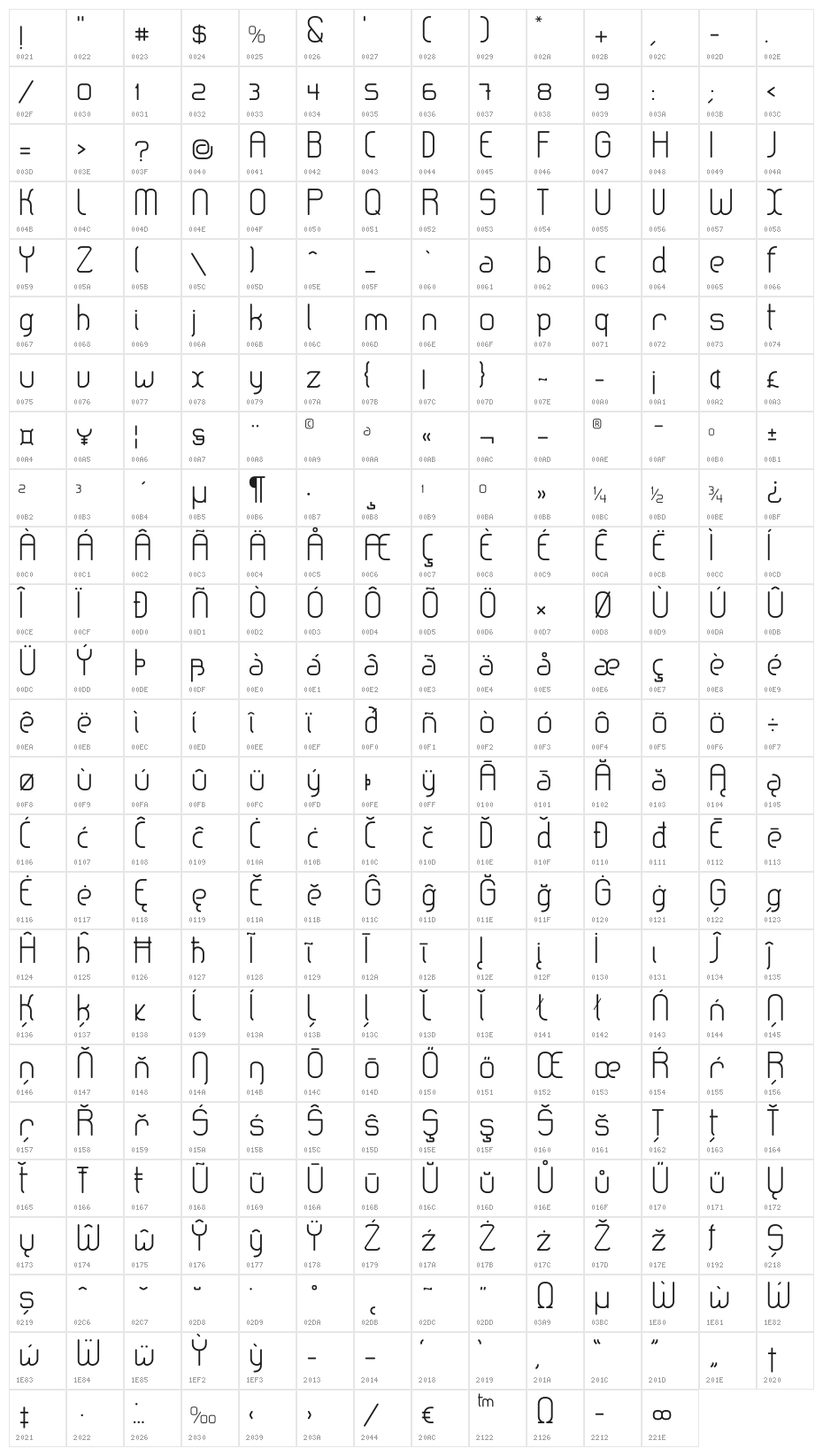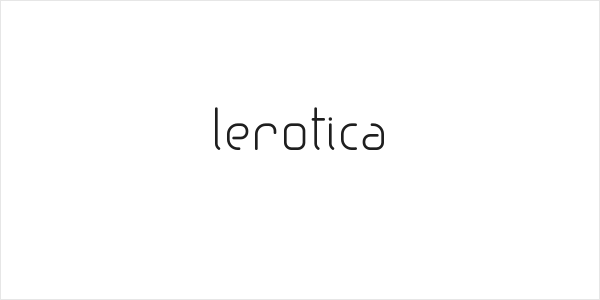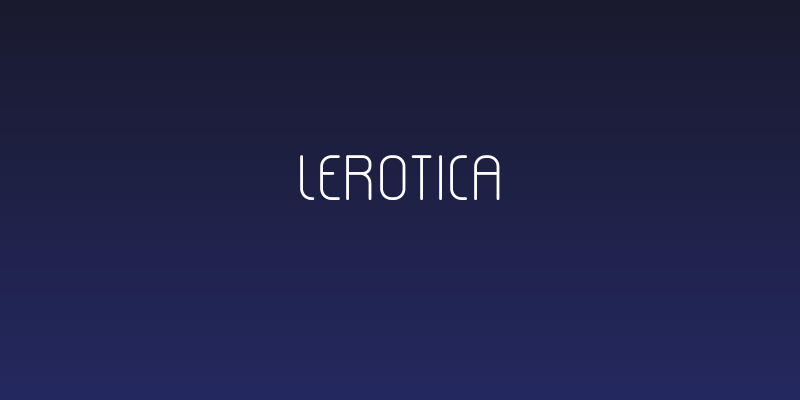
lerotica Font
lerotica Description
This font features a modern, geometric sans-serif style with rounded edges, giving it a friendly and approachable appearance. The characters are uniform in width, contributing to a clean and organized look. The uppercase and lowercase letters maintain a consistent height, enhancing readability. The numerals are distinct and align well with the overall design, while special characters are crafted to match the font's smooth and rounded aesthetic. This font's simplicity and clarity make it versatile for various applications.